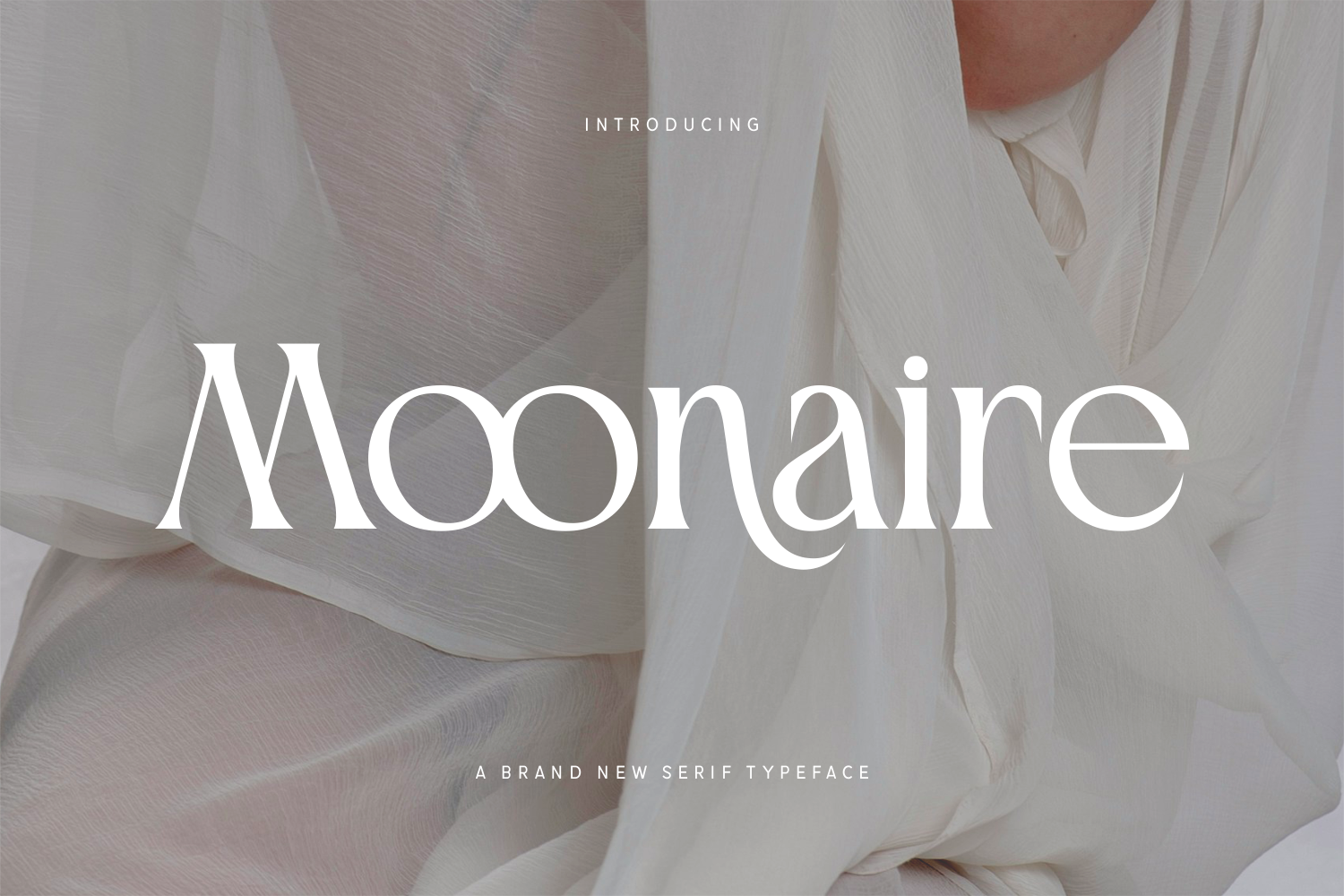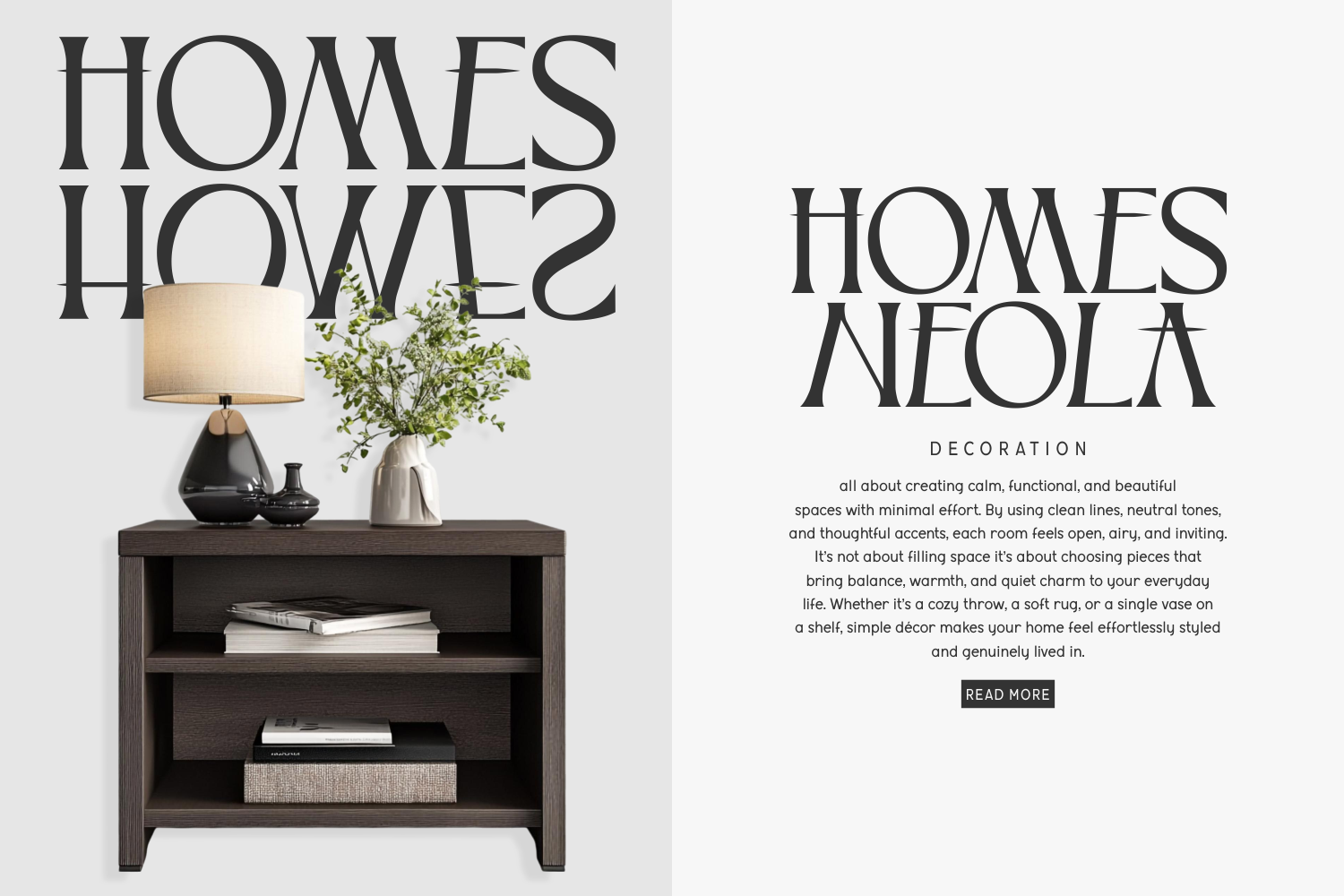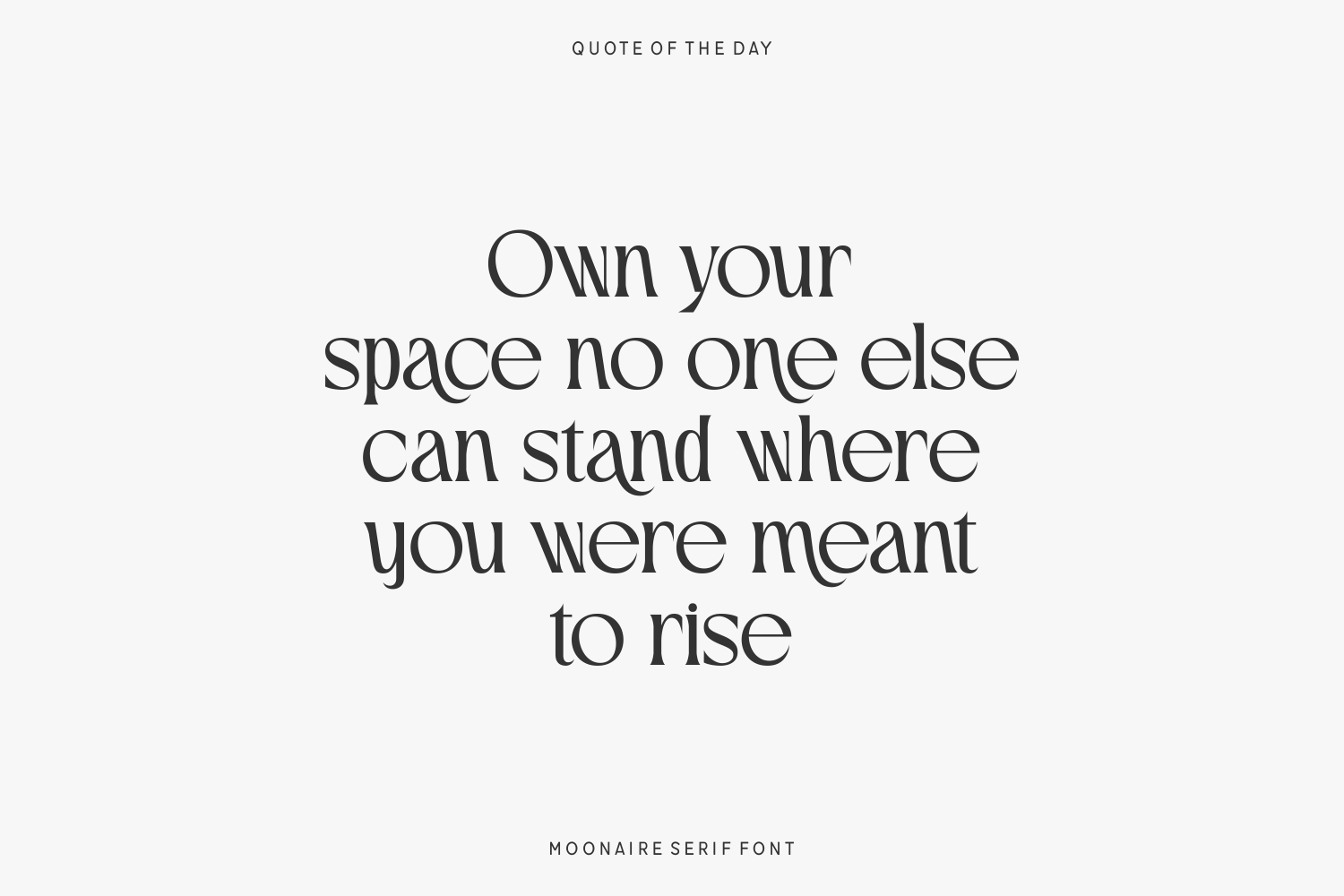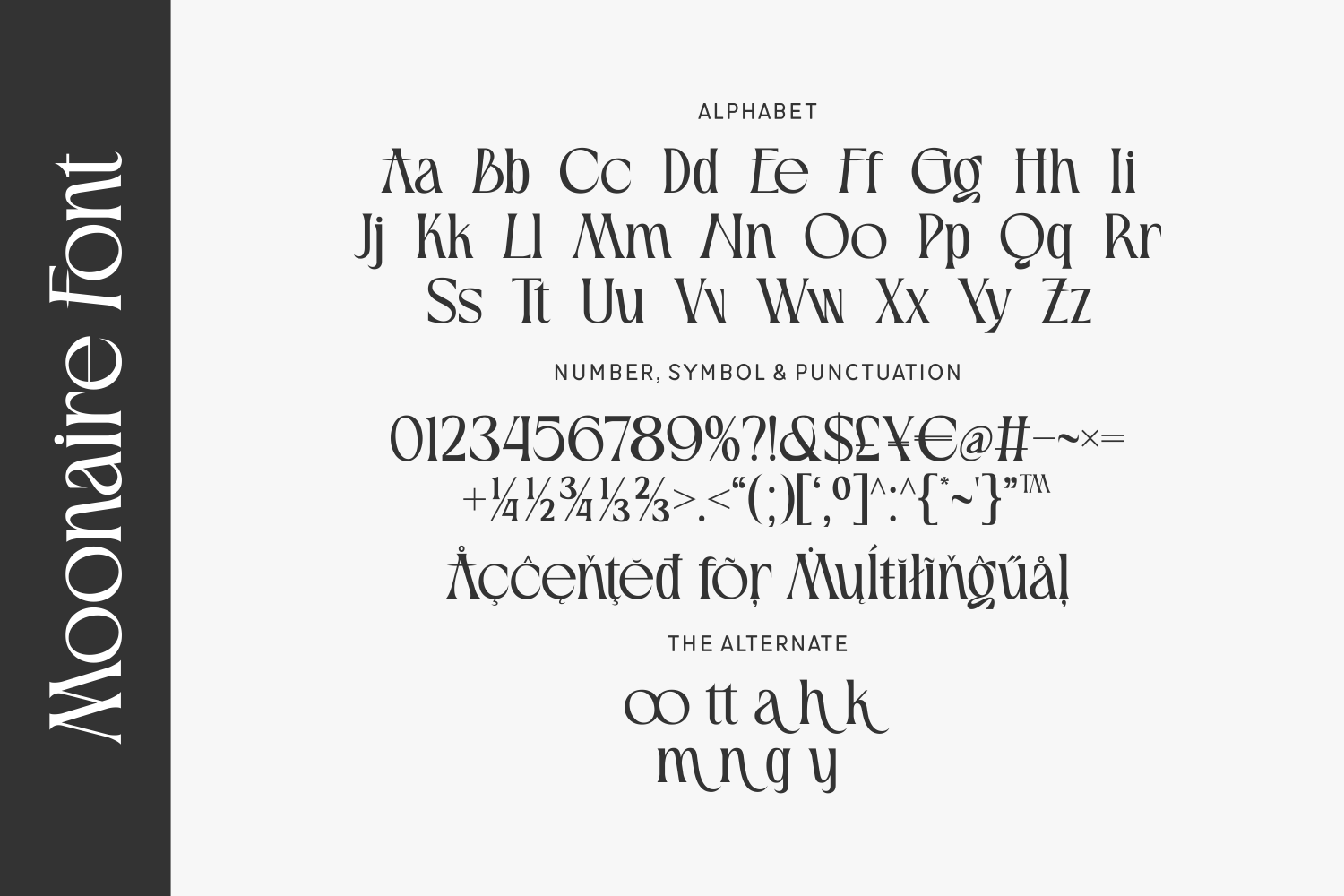
Moonaire is a sophisticated modern serif font that radiates ethereal elegance and artistic grace. Its refined contrast and soft, flowing shapes evoke a celestial charm, making it a standout choice for designers who seek elegance with a whisper of modern flair.